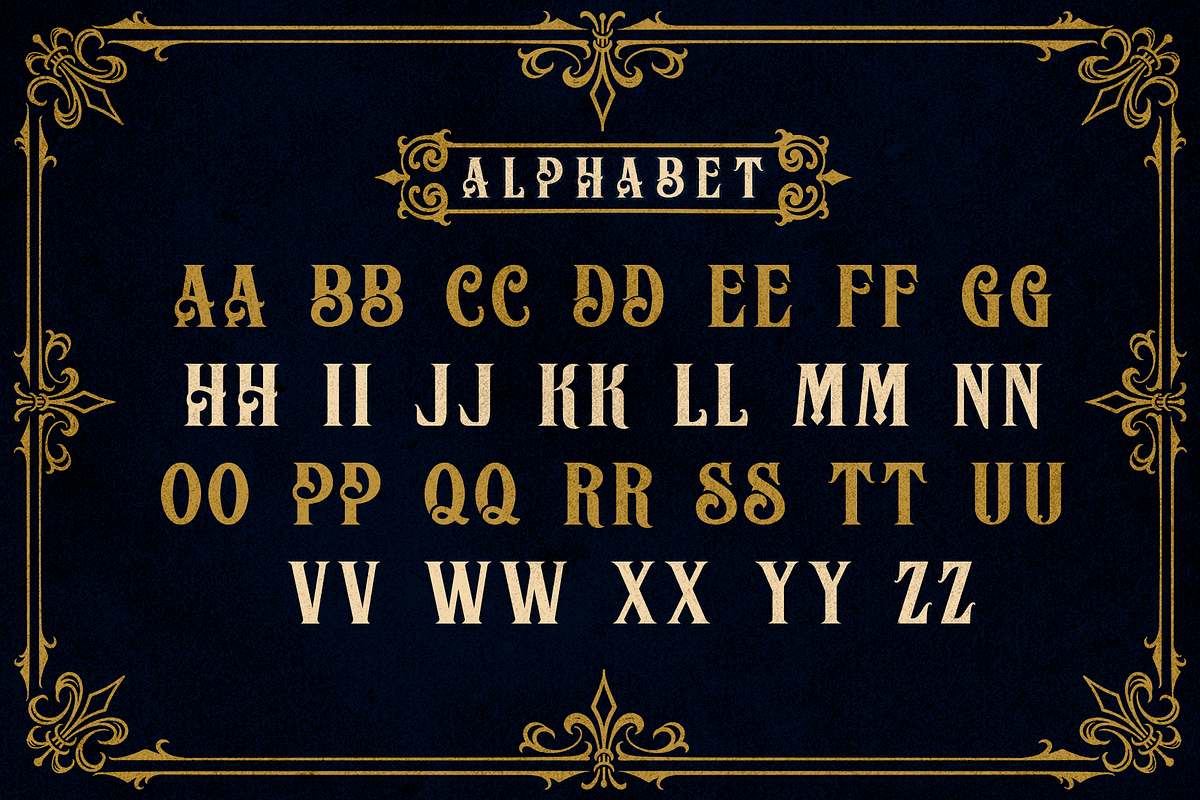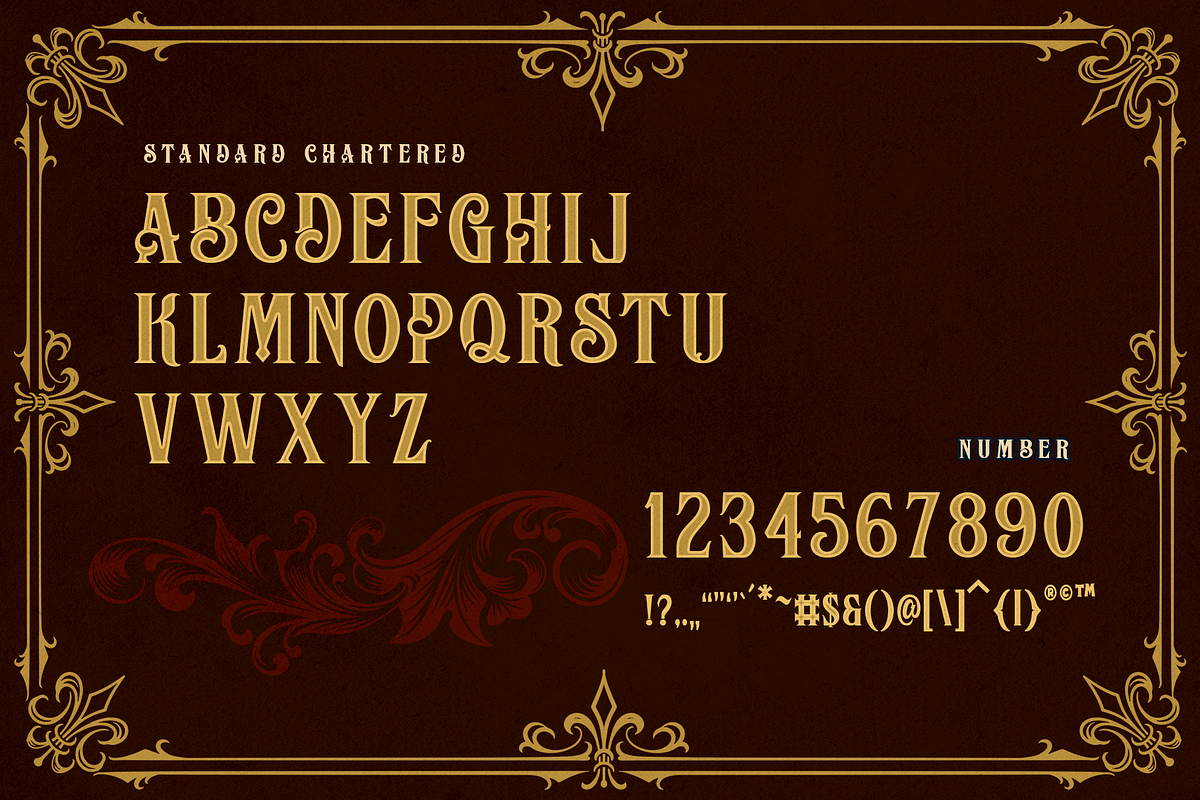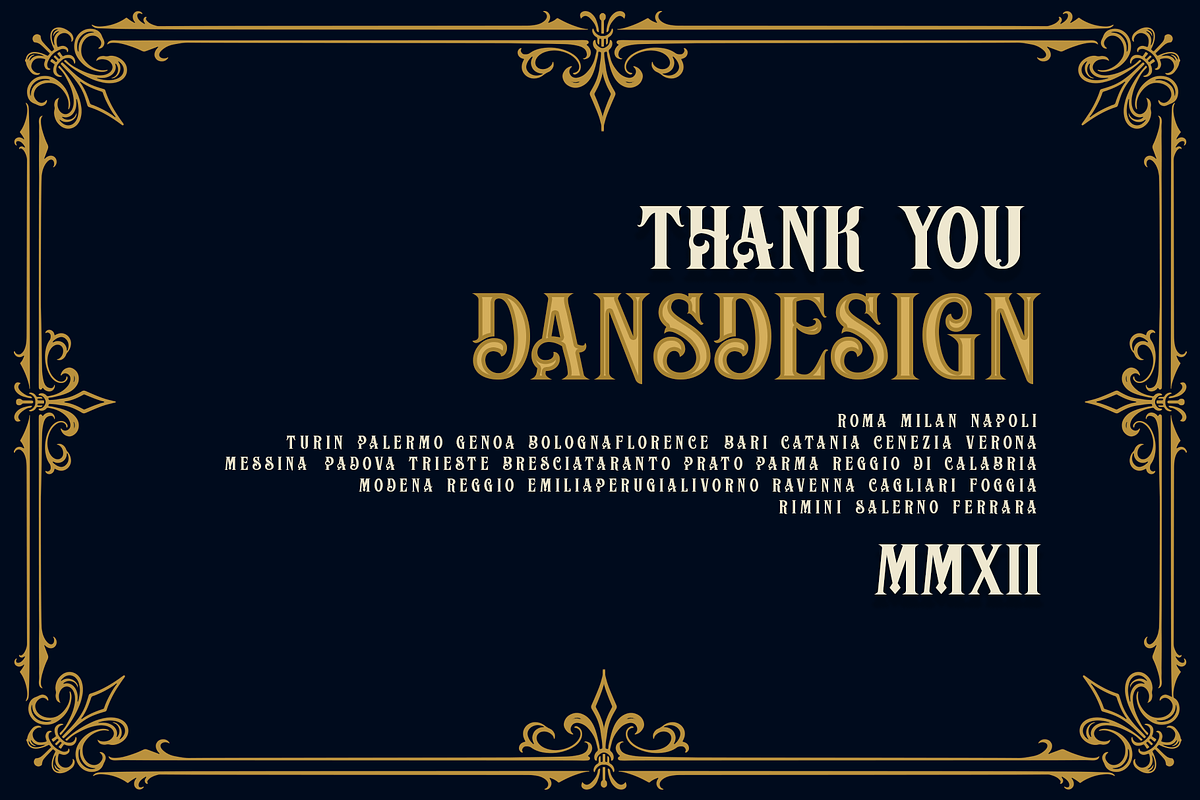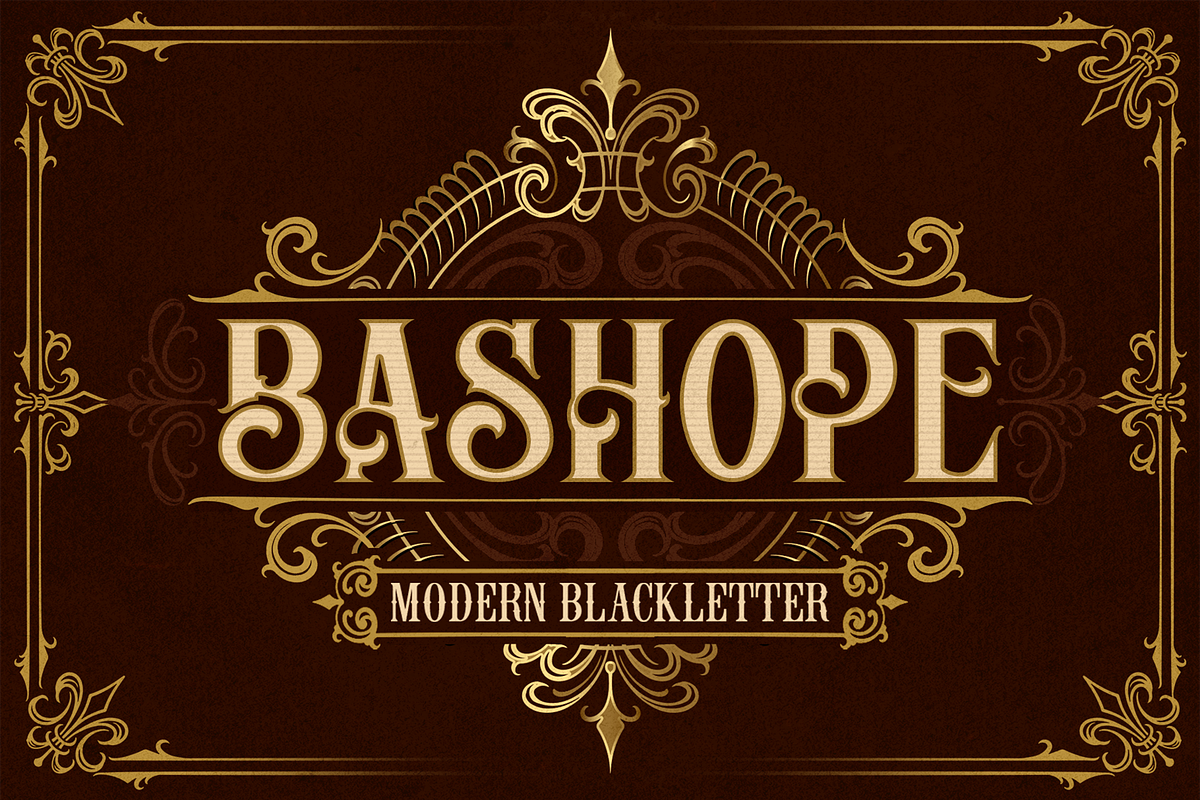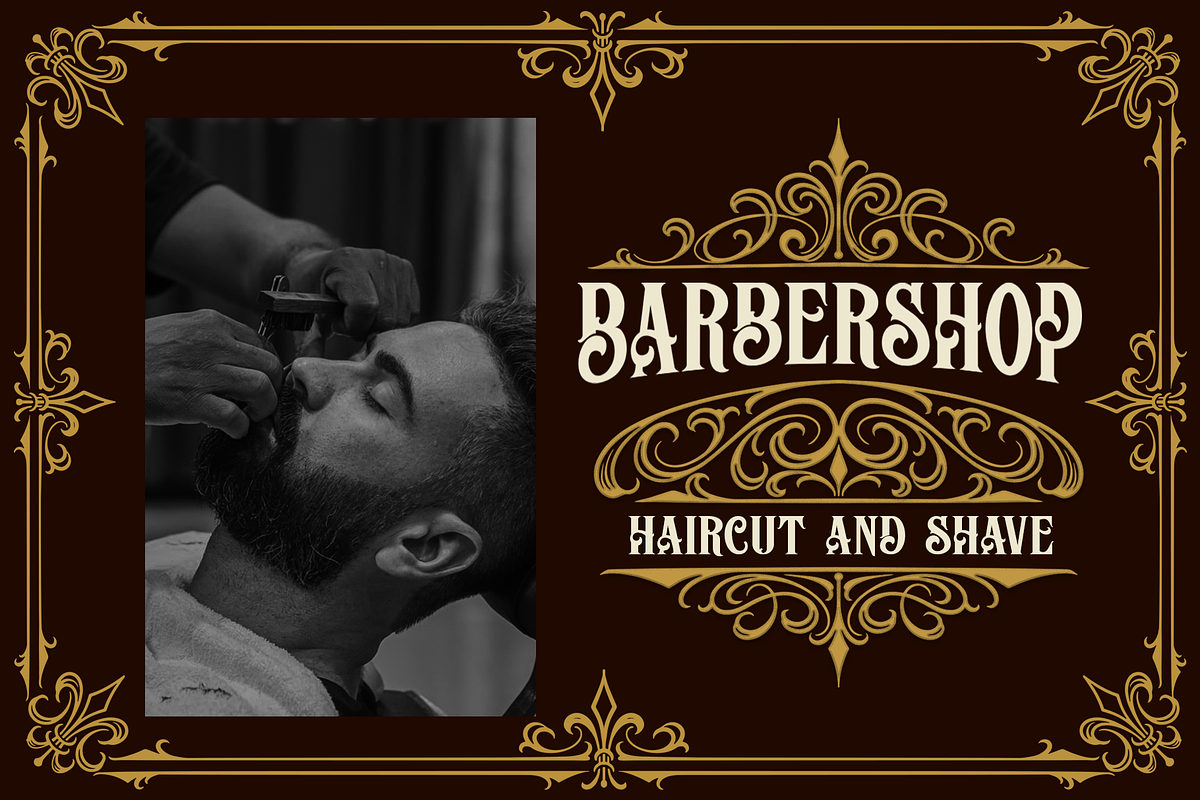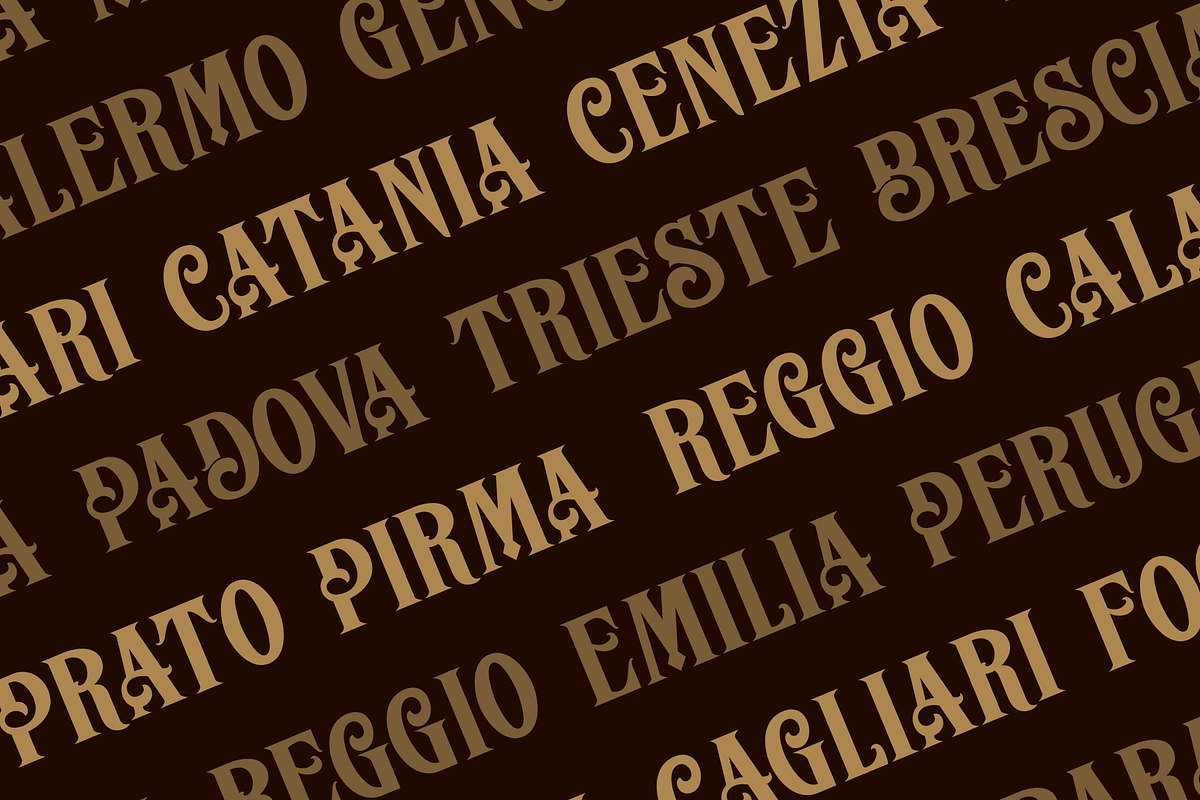
BASHOPE VINTAGE FONT
Dansdesign Proudly present BASHOPE VINTAGE FONT , This font is made with references to various letters that I combine and design with my style.
BASHOPE VINTAGE FONT are great and usefull for product logo, Tshirt, poster tittle, headline, packaging, badge, card logo, clothing brand logo, Vintage design and much more
- BASHOPE VINTAGE FONT regular font
- BASHOPE VINTAGE FONT slant font